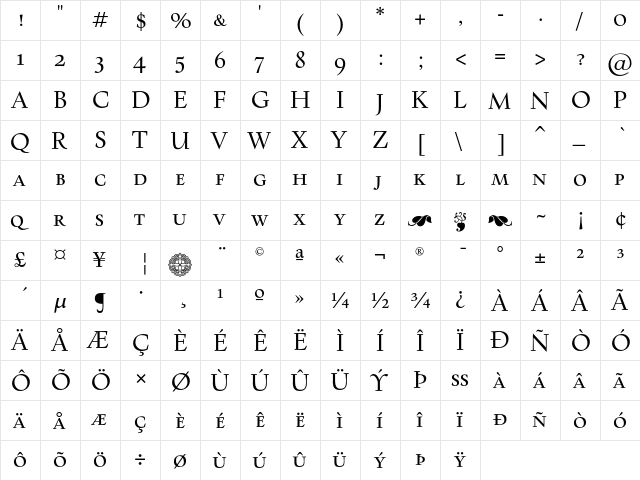
KennedySCGD Regular
Design Context for KennedySCGD Typeface
KennedySCGD offers clean, dependable letterforms without strong stylistic allegiance, making it a practical choice for designers who need flexibility.